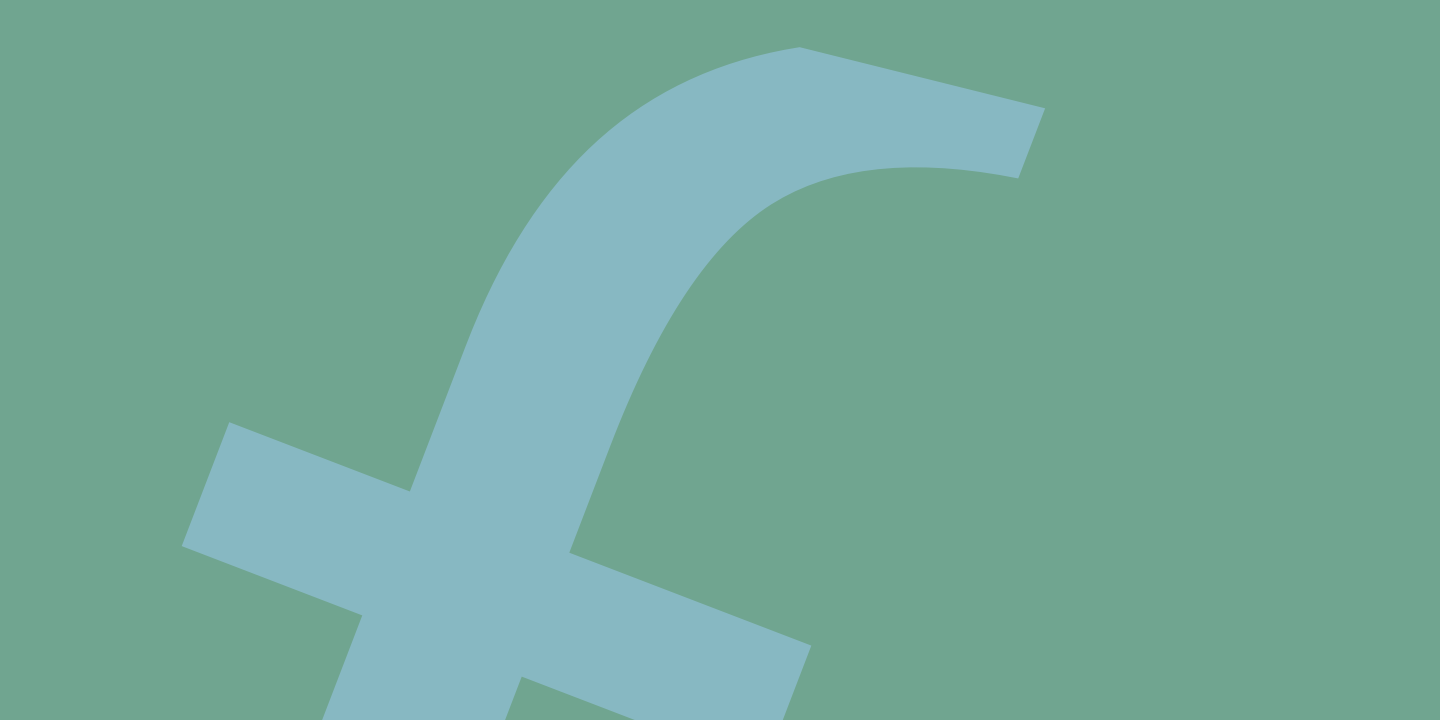
Geometric 415 Font is exceptionally designed for modern corporate branding, architectural presentations, technology company logos, minimalist web design, industrial product catalogs, contemporary signage systems, user interface design, scientific publications, engineering documentation, and clean editorial layouts that require precise geometric aesthetics.
What makes Geometric 415 Font so exciting is its masterful interpretation of pure geometric principles, featuring letterforms built on perfect circles, squares, and triangles that create an exceptionally clean and systematic appearance. This font represents the pinnacle of rationalist typography, where mathematical precision meets functional beauty. Its construction follows strict geometric guidelines while maintaining optimal readability, making it ideal for brands that want to communicate precision, reliability, and forward-thinking innovation through their visual identity.
The Geometric 415 Font family includes comprehensive weight variations such as thin, light, regular, medium, bold, and black, along with their corresponding italic versions. Each weight maintains the fundamental geometric construction principles while offering different levels of visual impact and hierarchy possibilities for complex design systems.
Professional designers consistently select Geometric 415 Font Free Download for projects requiring clean, systematic typography that conveys technical expertise and modern sophistication. Its geometric purity makes it particularly effective for technology brands, architectural firms, and scientific organizations where precision and clarity are paramount values.
The font's exceptional legibility across all sizes makes it incredibly versatile for both large display applications and extended text reading. Geometric 415 Font maintains its geometric character while ensuring optimal readability in technical documentation, user manuals, and digital interfaces where information clarity is critical.
Typography experts appreciate the font's consistent application of geometric principles throughout the entire character set, creating harmonious relationships between letters that result in exceptionally even text color and rhythm. The systematic approach to letterform construction demonstrates advanced typographic understanding and craftsmanship.
For digital product designers, Geometric 415 Font offers excellent screen performance with optimized hinting and careful attention to pixel-level rendering. Its clean geometric shapes translate perfectly to digital environments, making it ideal for user interface design and web applications.
Brand consultants frequently recommend this font for clients in technology, engineering, architecture, and scientific sectors where geometric precision directly supports brand messaging about accuracy, innovation, and technical competence. Its clean aesthetic helps establish trust and credibility.
Corporate communication designers particularly value Geometric 415 Font for annual reports, technical presentations, and documentation where consistent typography reinforces organizational values of precision and reliability. The font family's comprehensive weight range supports complex information hierarchies.